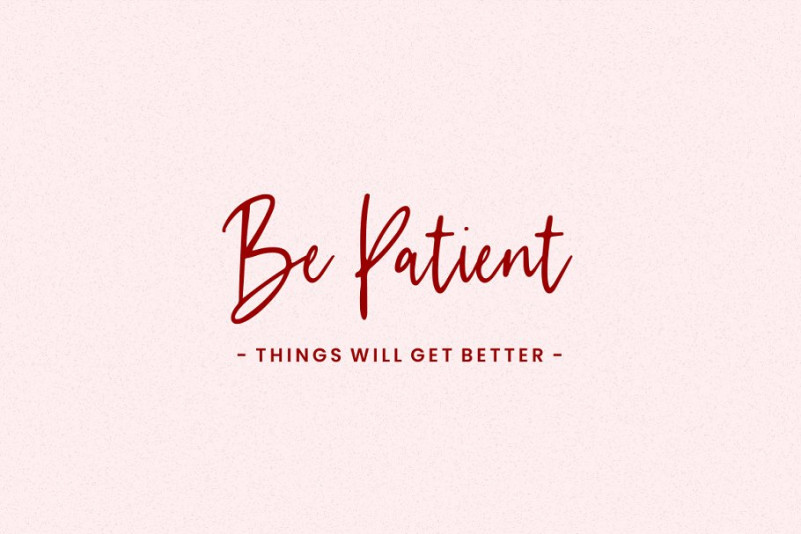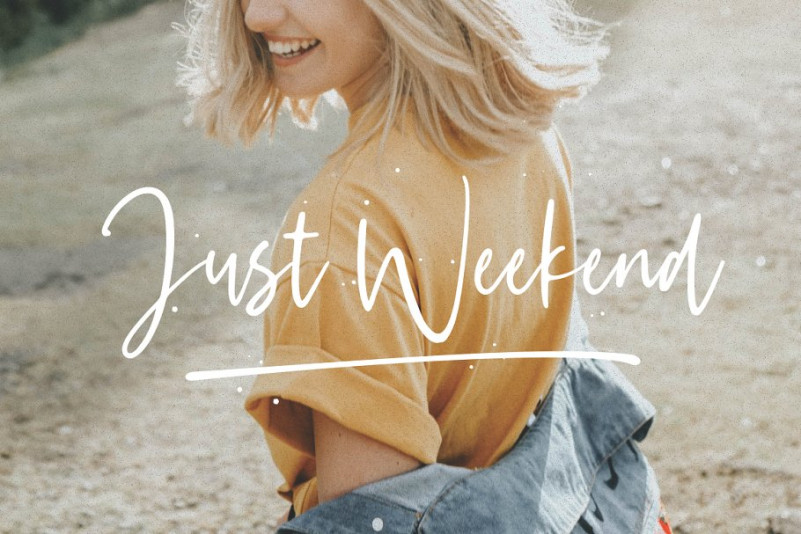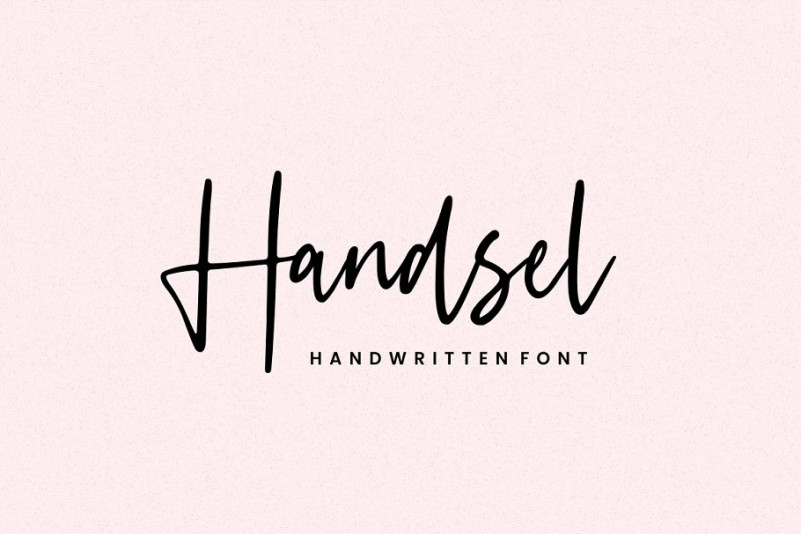
Handsel Script Font
Handsel Script  Demo Font
Introducing Handsel Handwritten Font. A new fresh handmade signature typeface by Sronstudio. Handsel Script Font is a natural & modern handwritten font. I’ts Perfect for logo, invitation, stationery, wedding designs, social media posts, advertisements, product packaging, product designs, label, photography, watermark, special events or anything.